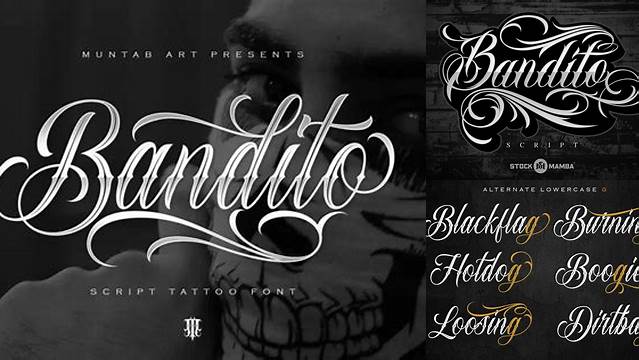
Free Bandito Script Font: Stylish & Edgy
Hey guys! Are you ready to add a touch of rebellious flair to your designs? Let's dive into the world of the free Bandito Script font, a typeface that's as bold and untamed as its name suggests. This font is perfect for anyone looking to inject a dose of edgy personality into their creative projects. Whether you're designing a website, crafting social media graphics, or working on a personal project, the Bandito Script font can help you make a statement.
What Makes Bandito Script Font Special?
So, what's the deal with this Bandito Script font? Well, it's got a distinctive look that sets it apart from the crowd. Think of it as a modern take on classic script fonts, with a slightly rough and raw edge. The letters have a natural flow and a dynamic feel, as if they were handwritten with a confident stroke. This gives your text a sense of authenticity and character that can be hard to find in other fonts. It's not just about aesthetics, though. The Bandito Script font is also incredibly versatile. You can use it for a wide range of applications, from headlines and logos to quotes and call-to-actions. It's a great choice for projects that need to convey a sense of adventure, creativity, or a touch of the unexpected. It is a font that is designed to grab attention and leave a lasting impression on your audience. In addition to its visual appeal, the Bandito Script font is also known for its readability. Despite its stylish design, the letters are easy to distinguish, even at smaller sizes. This ensures that your message comes across clearly, without sacrificing the font's unique charm. The font's versatility extends to various design styles. Whether you're aiming for a vintage vibe, a modern look, or something in between, the Bandito Script font can adapt to your needs. Try pairing it with different colors, backgrounds, and graphics to create a cohesive and visually appealing design. You can really get creative with this one.
This Bandito Script font is a fantastic option for anyone looking to create something with a unique and eye-catching style. If you want to add a touch of personality to your designs, be sure to check it out. You won't be disappointed!
Key Features and Characteristics of the Bandito Script Font
Let's get into the nitty-gritty and explore what makes this font tick. The Bandito Script font boasts several key features that contribute to its popularity and visual appeal. One of the first things you'll notice is its distinctive style. It has a slightly imperfect, handwritten look that gives it a touch of authenticity and personality. The strokes are bold and confident, with a dynamic flow that makes your text come alive. Then we must talk about the legibility! Even with its stylish design, the Bandito Script font is still surprisingly easy to read. The letters are well-defined and distinct, ensuring that your message is clear and easy to understand, even at smaller sizes. This makes it a great choice for a variety of uses, from headlines and logos to body text and captions. The font's versatility is another standout feature. It can be used for a wide range of design projects, from websites and social media graphics to posters and packaging. It works well in various contexts, including vintage, modern, and everything in between. You can pair it with different colors, backgrounds, and graphics to create a cohesive and visually appealing design.
Tips for Using the Bandito Script Font Effectively
Alright, now that you've got the Bandito Script font, let's talk about how to make the most of it. First and foremost, remember the context of your design. This font is best suited for projects that need a touch of personality, creativity, or a bit of an edge. Now, what if you are unsure? Consider using the font for headlines and titles. The bold and dynamic style of the font makes it perfect for grabbing attention and creating a strong visual impact. It works great for websites, social media graphics, and posters. Also, be sure to use it for logos and branding. The unique style of the Bandito Script font can give your brand a memorable and distinctive look. This is a particularly good option for businesses that want to project a sense of creativity or adventure. Don't forget about quotes and call-to-actions. This font is a good fit for highlighting important messages and inspiring action. You can use it to emphasize key phrases or create a visually appealing design that encourages interaction. Make sure it goes with your overall design style. The Bandito Script font can be used in a wide range of design styles, from vintage to modern. It is important to choose a color palette that complements the font and enhances its visual appeal.
Also, consider the background. The font can be used on various backgrounds, from plain white to textured images. The trick is to choose a background that doesn't compete with the font. Then, test out different font sizes and weights. This can affect the overall readability and visual impact of your text. Adjust the kerning and leading. Experiment with different combinations to find the perfect balance. Make sure you use it consistently. Once you've chosen the Bandito Script font, use it consistently throughout your project to create a unified and cohesive look. Be sure to experiment. Have fun with it and try out different variations and combinations until you find the perfect look for your project. This is all about finding what works best for you. Now, go on and start creating!